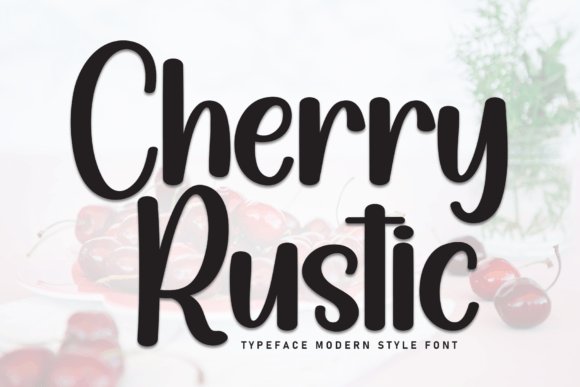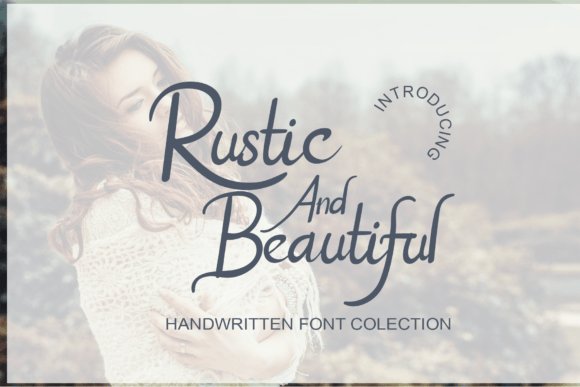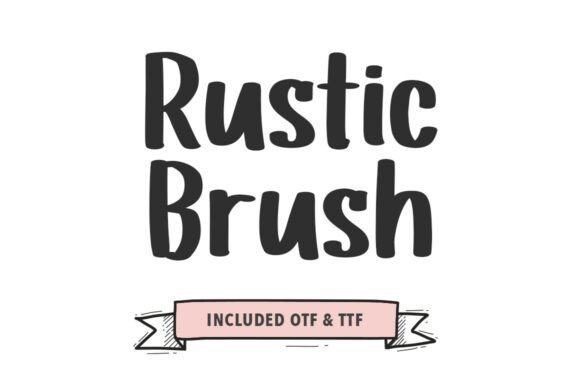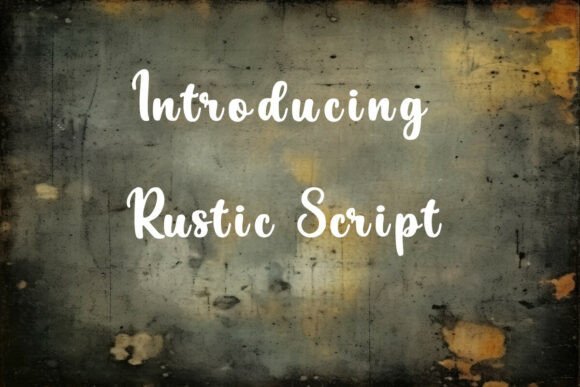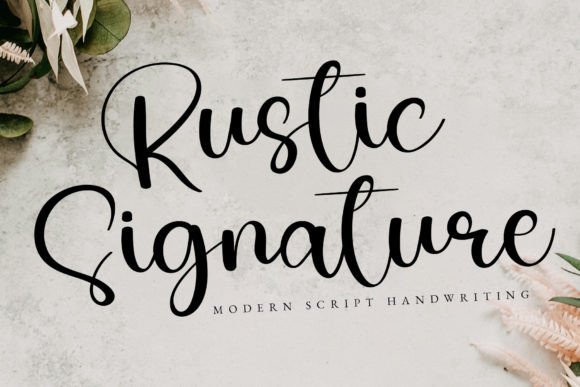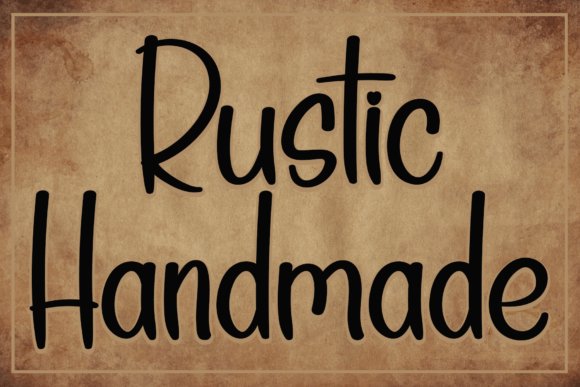
38 Best Rustic Fonts for Inspiring Handcrafted Design in 2026
If you need rustic fonts to add a warm, weathered personality to your work, this curated list of 38 typefaces is for you. These selections cover vintage, distressed, hand-lettered, and farmhouse-inspired styles that work beautifully for branding, packaging, and wedding design.
Each font is chosen for its authentic texture and versatility-think woodcut lettering, barnboard distress, and handcrafted scripts. Use them to create nostalgic logos, textured headlines, or cozy product labels that feel both timeless and on-trend in 2026.
1. Rustic Wedding Font
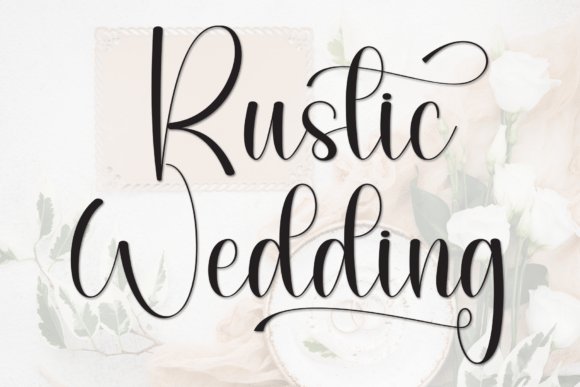
Rustic Wedding delivers a refined handwritten calligraphy that balances graceful strokes with a lived-in, organic character. As one of the standout rustic fonts in celebration stationery, it combines flowing swashes, delicate terminals, and a rhythmic baseline that reads both intimate and elegantly composed.
The font’s PUA encoding unlocks an abundance of alternates and ornamental glyphs without extra tools, making it easy to swap in flourishing swashes and ligatures for varied looks. Those alternates let you craft everything from subtle nameplates to dramatic headline compositions while keeping readability intact.
Designers will appreciate how this typeface pairs with simple serif or clean sans companions to create upscale yet approachable layouts for invitations, place cards, and event signage. Its warm, personal tone works especially well where handcrafted appeal and polished presentation need to coexist.
My Recommendation: I reach for this Rustic Wedding font when I want calligraphic elegance with a cozy, handcrafted vibe. The PUA features make experimenting fast, and the swashes feel authentic rather than over-produced. Use it for wedding suites, intimate branding, or any project where you want luxury softened by a natural, homegrown aesthetic.
2. Rustic Wedding Font
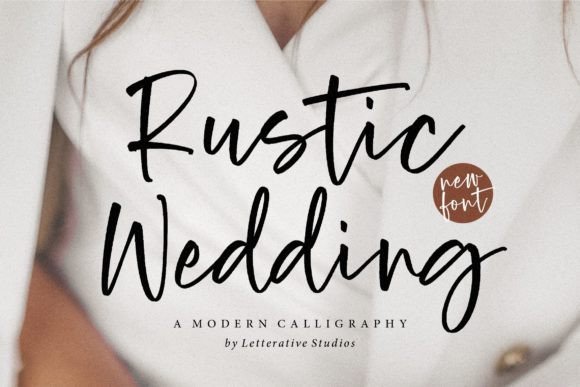
This Modern Calligraphy Font reads like a spontaneous hand-lettered note refined for digital use, with smooth joins and a lively baseline that bring a personable rhythm to copy. Its accessible character set and moderate contrast make it ideal for short headlines, social media artwork, and crafty print projects without losing elegance.
Versatility is the font’s strong suit: it adapts from cheerful greeting cards to sleek presentation headers, offering a blend of playful swashes and restrained letterforms that avoid fussiness. Built-in alternates and ligatures improve flow and help you avoid repetitive repetition in repeated names or phrases.
Because it maintains clarity at smaller sizes while holding personality at display scale, this face becomes a dependable go-to for designers who need a single type that can handle diverse creative tasks. Try pairing it with textured paper or rustic patterns to amplify its handmade charm.
My Recommendation: I recommend this Modern Calligraphy design for anyone needing a flexible, friendly script that performs across print and digital. It’s my pick for DIY stationery, branded social posts, and craft-market products because it strikes a sweet balance between expressive hand-lettering and practical legibility. It brightens projects without overpowering other visual elements.
3. Rustic Wedding Font
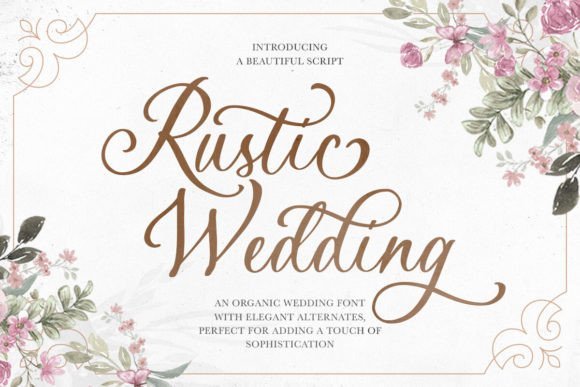
Rustic Wedding offers a handmade aesthetic with both upper and lowercase characters, expanded punctuation, and multilingual support to serve diverse audiences. Its textured, slightly imperfect strokes give the impression of ink on paper, useful for fashion identities, artisan packaging, and authentic quote graphics.
OpenType features such as ligatures, swashes, and numerous alternates provide creative control over rhythm and spacing, while the special AND alternates let you craft distinctive joins that read as bespoke embellishments. These features are especially handy when building logos or signature marks that need variety without extra edits.
From brand wordmarks to elegant wedding invites, the font’s organic charm translates well across print and web. Attention to kerning and the breadth of alternates make it easy to refine headline treatments so they feel handcrafted yet polished.
My Recommendation: I use this variant when projects demand a visibly hand-crafted look with professional flexibility. The multilingual support and alternates mean you can maintain style consistency across markets, and the AND alternates are a delightful shorthand for elevated invitation design. It shines in boutique branding, editorial mastheads, and any project seeking artisanal credibility.
4. Rustic Sunflowers Font
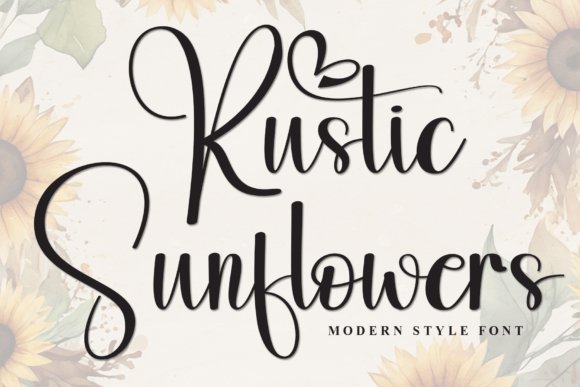
Rustic Sunflowers is a brush-script display with the warm spontaneity of hand-painted calligraphy and a modern, refined finish. Among rustic fonts, it manages to feel both wild and controlled: broad, textured strokes give a weathered, organic look while the letterforms remain deliberate and readable, creating a striking artisanal personality.
Whether you want a gritty, grunge-inspired title or a soft, hand-lettered script, these 38 rustic fonts provide plenty of options for rustic, vintage, and farmhouse aesthetics. Mixing a distressed display face with a clean sans or a script can give your layouts contrast and warmth.